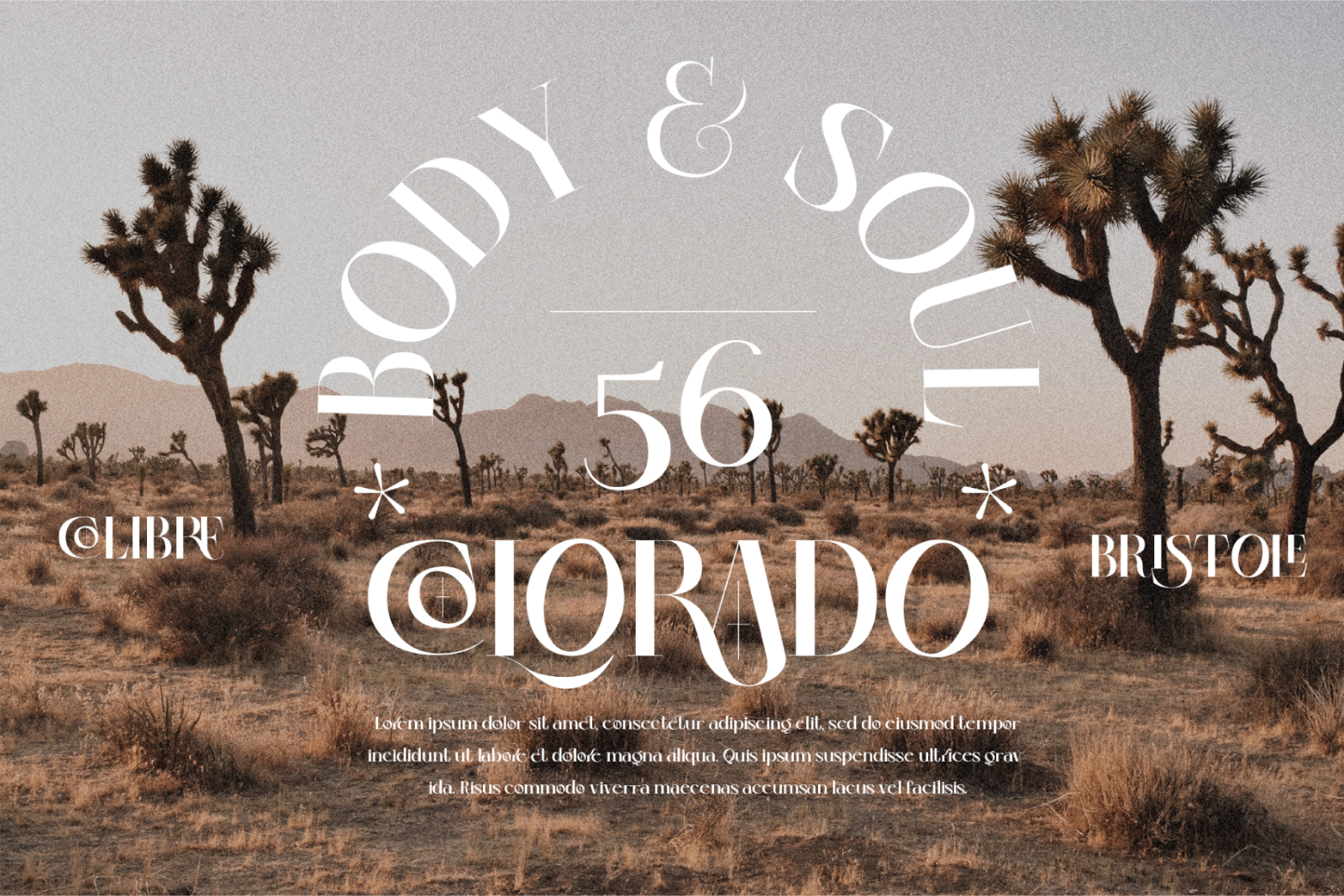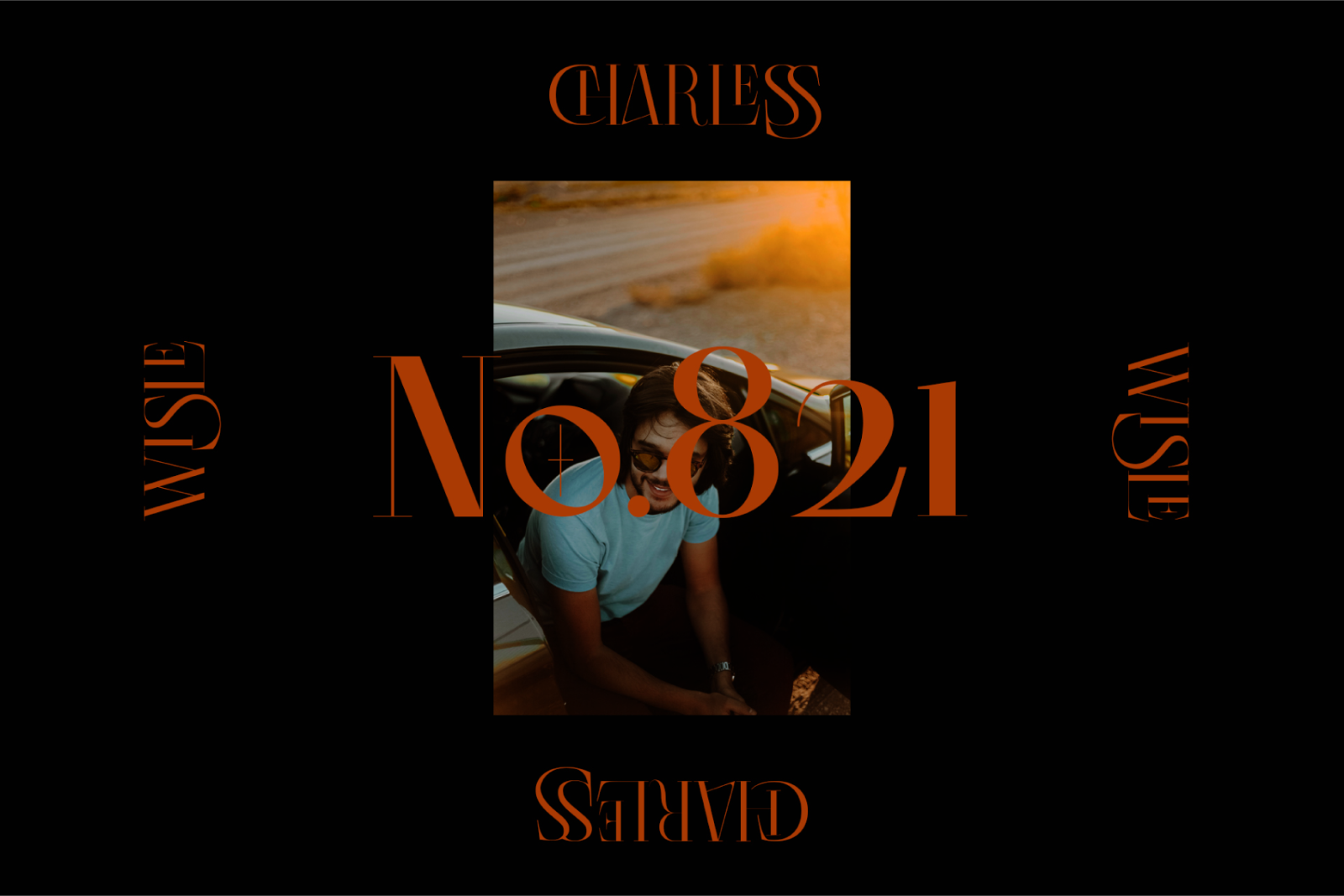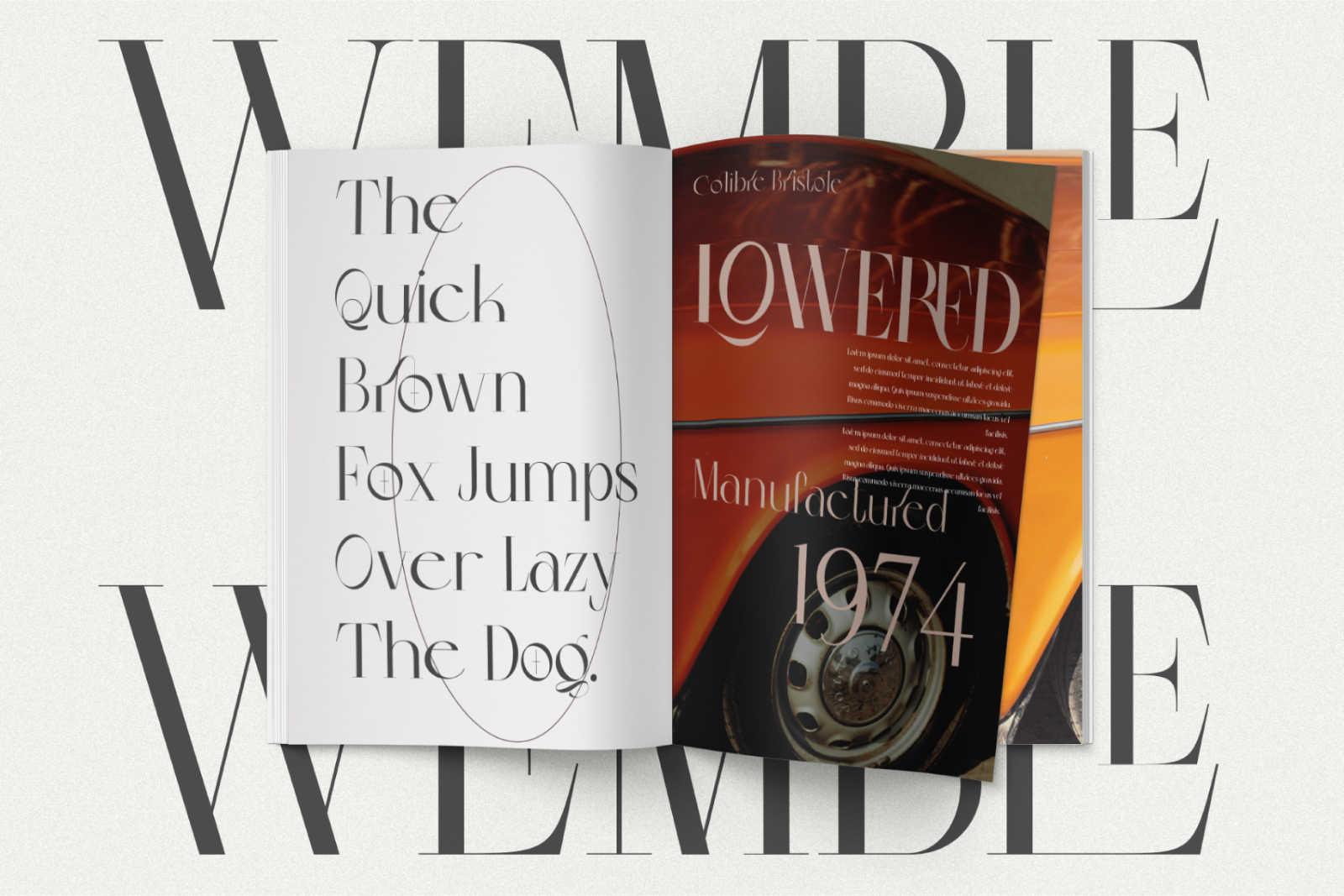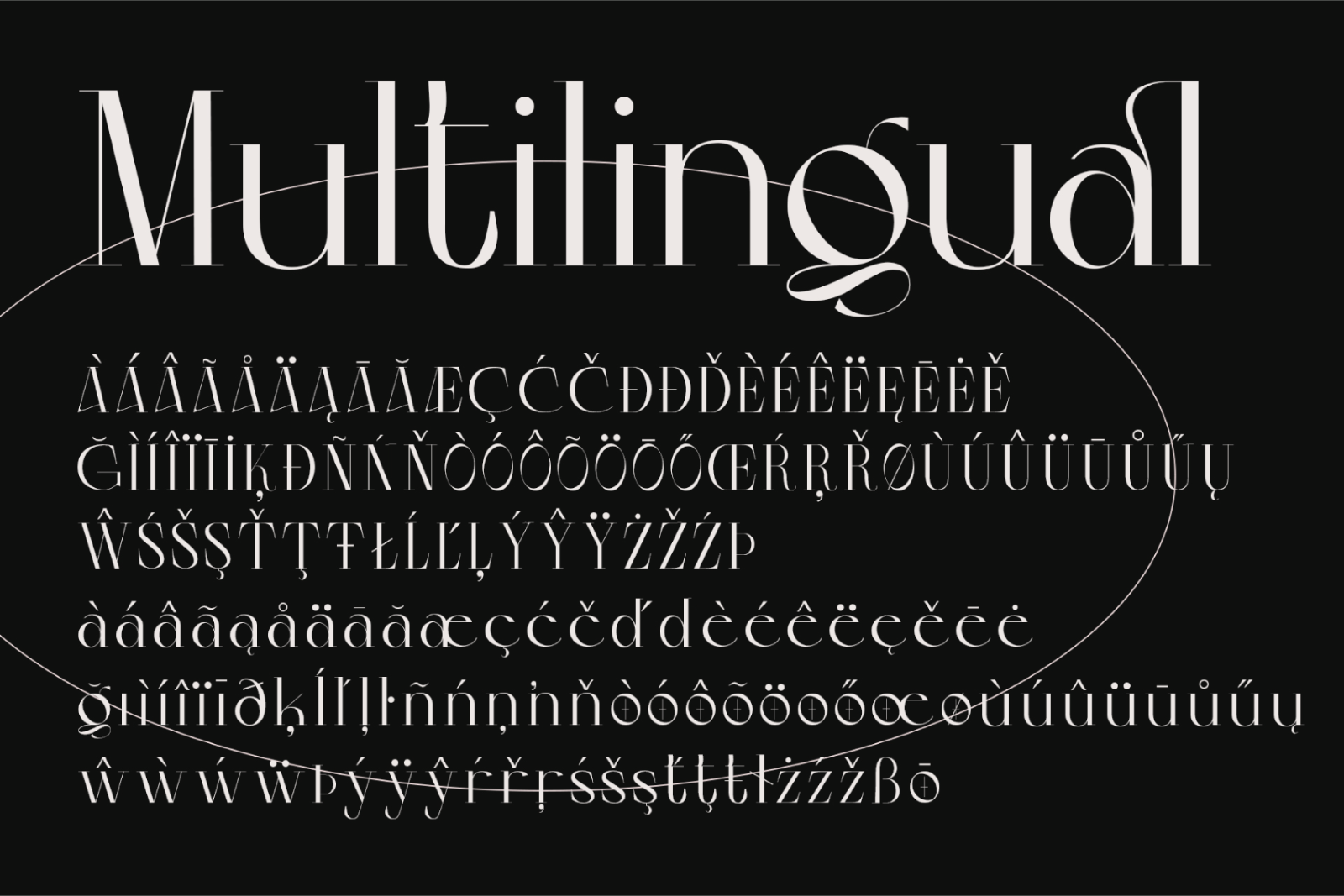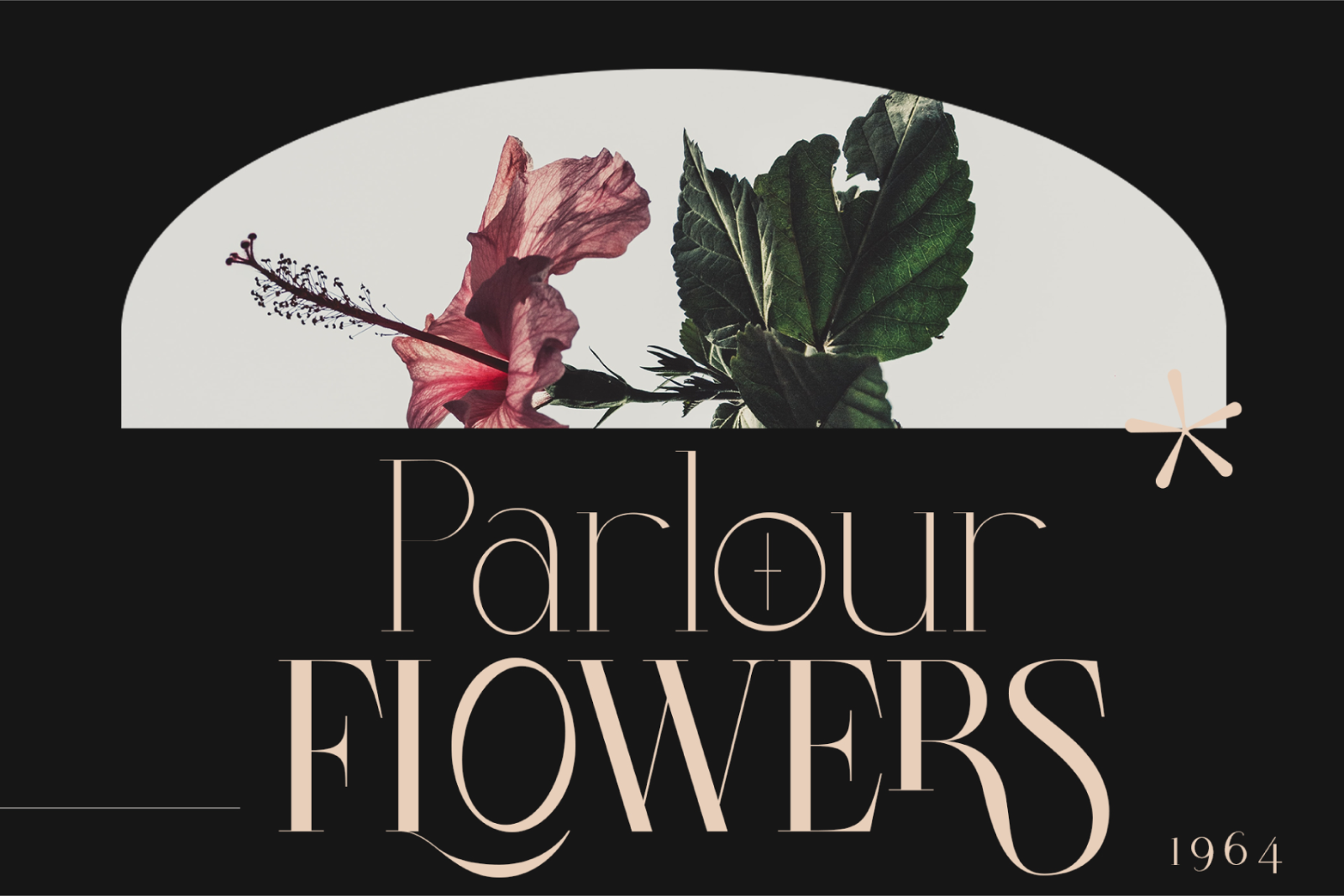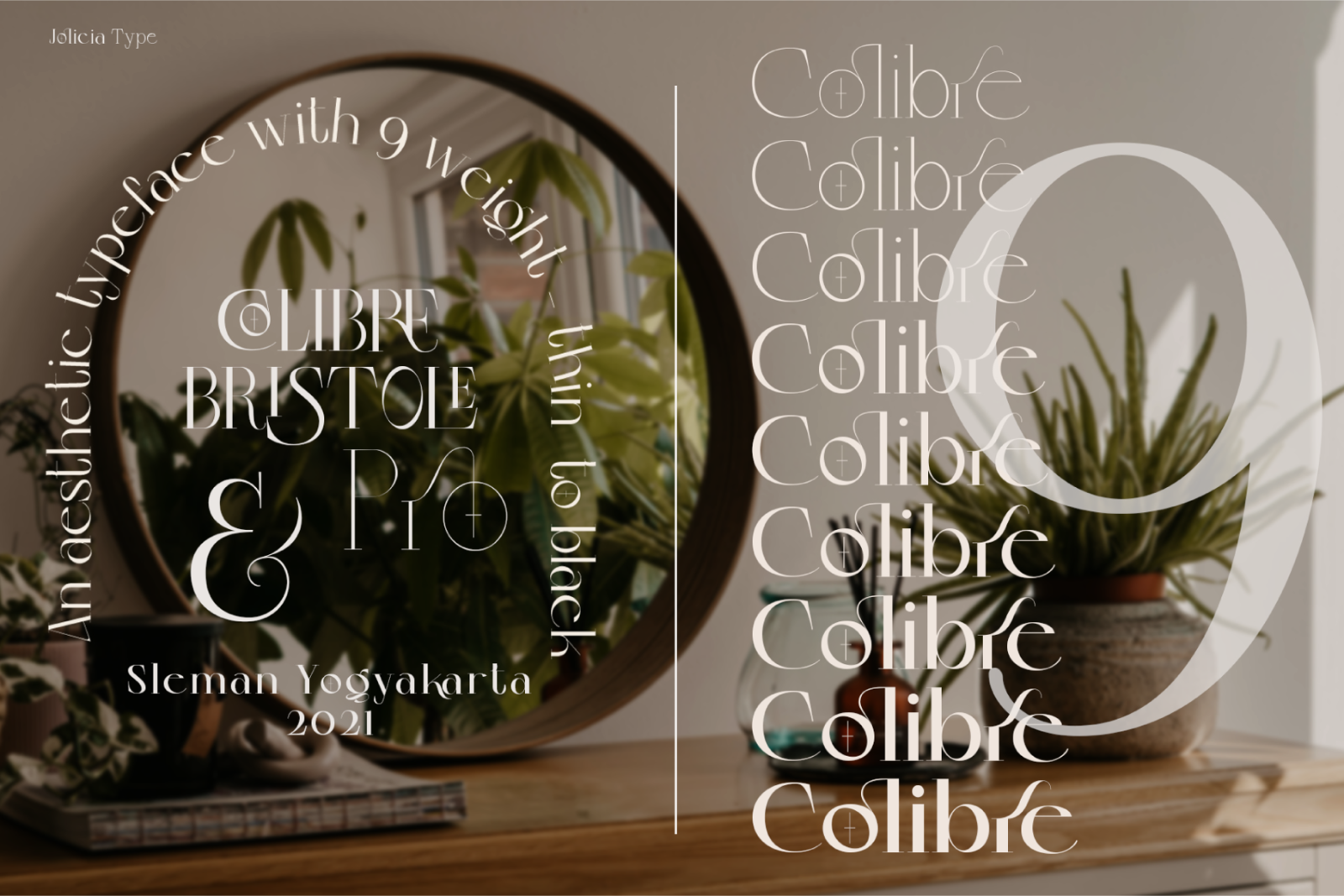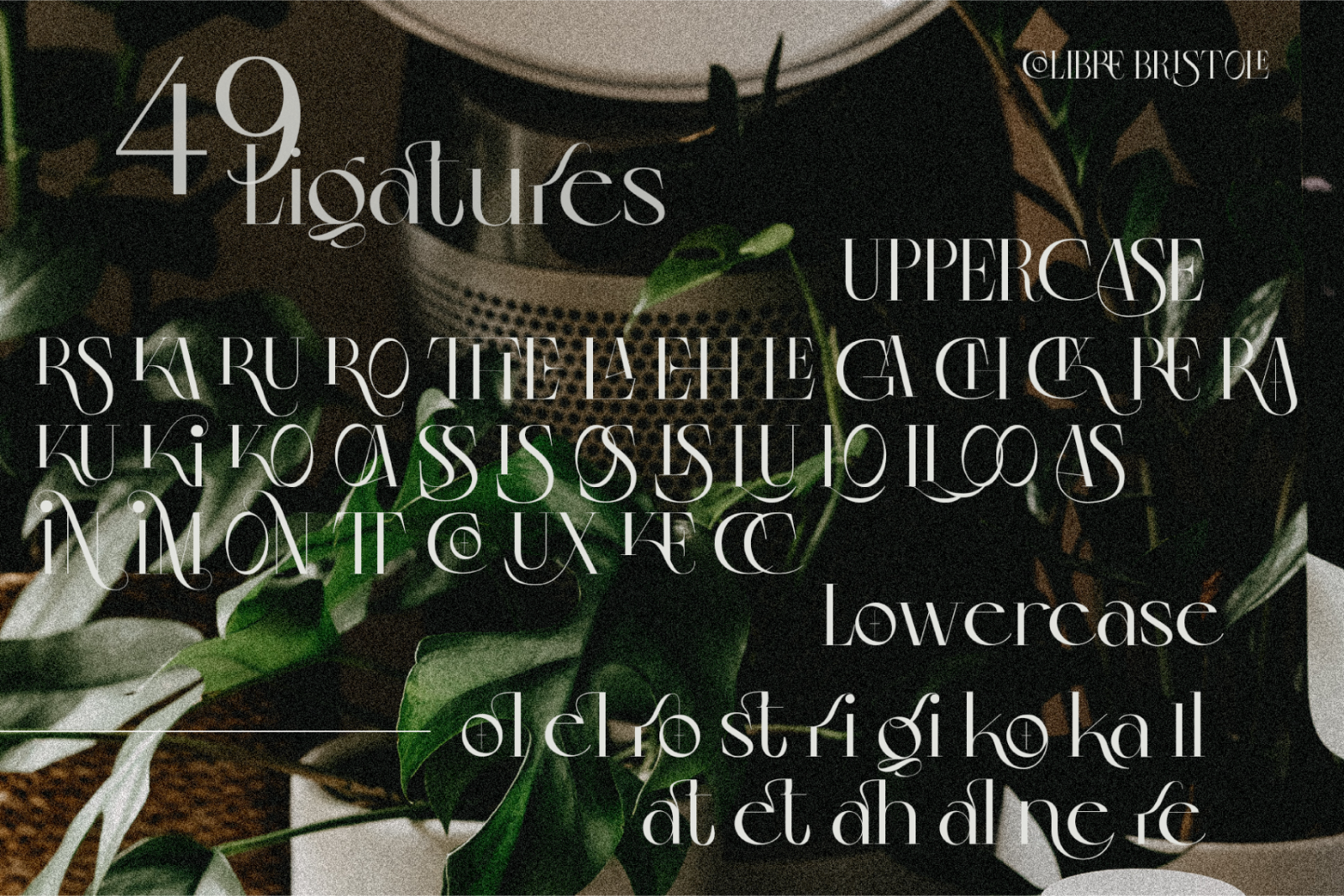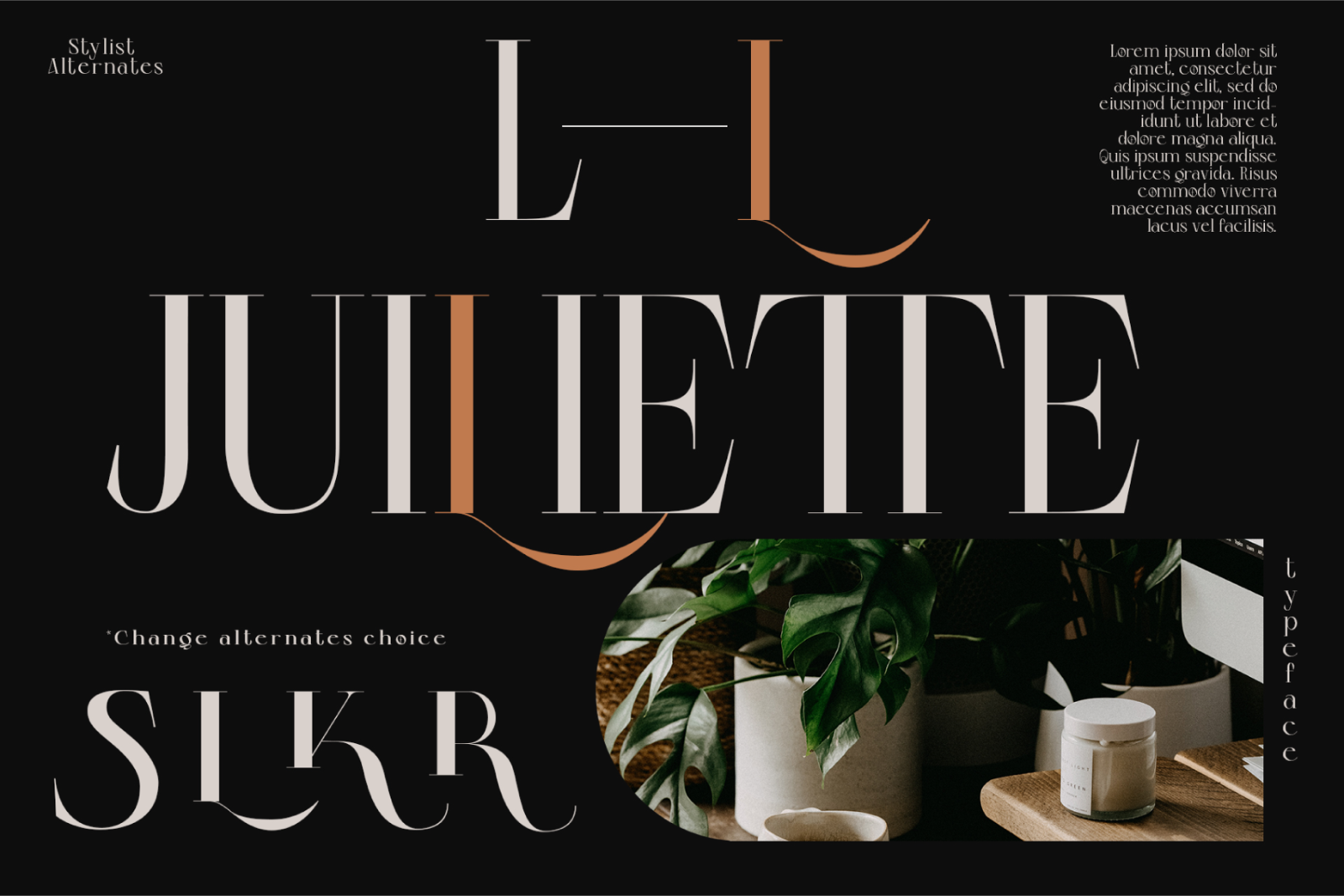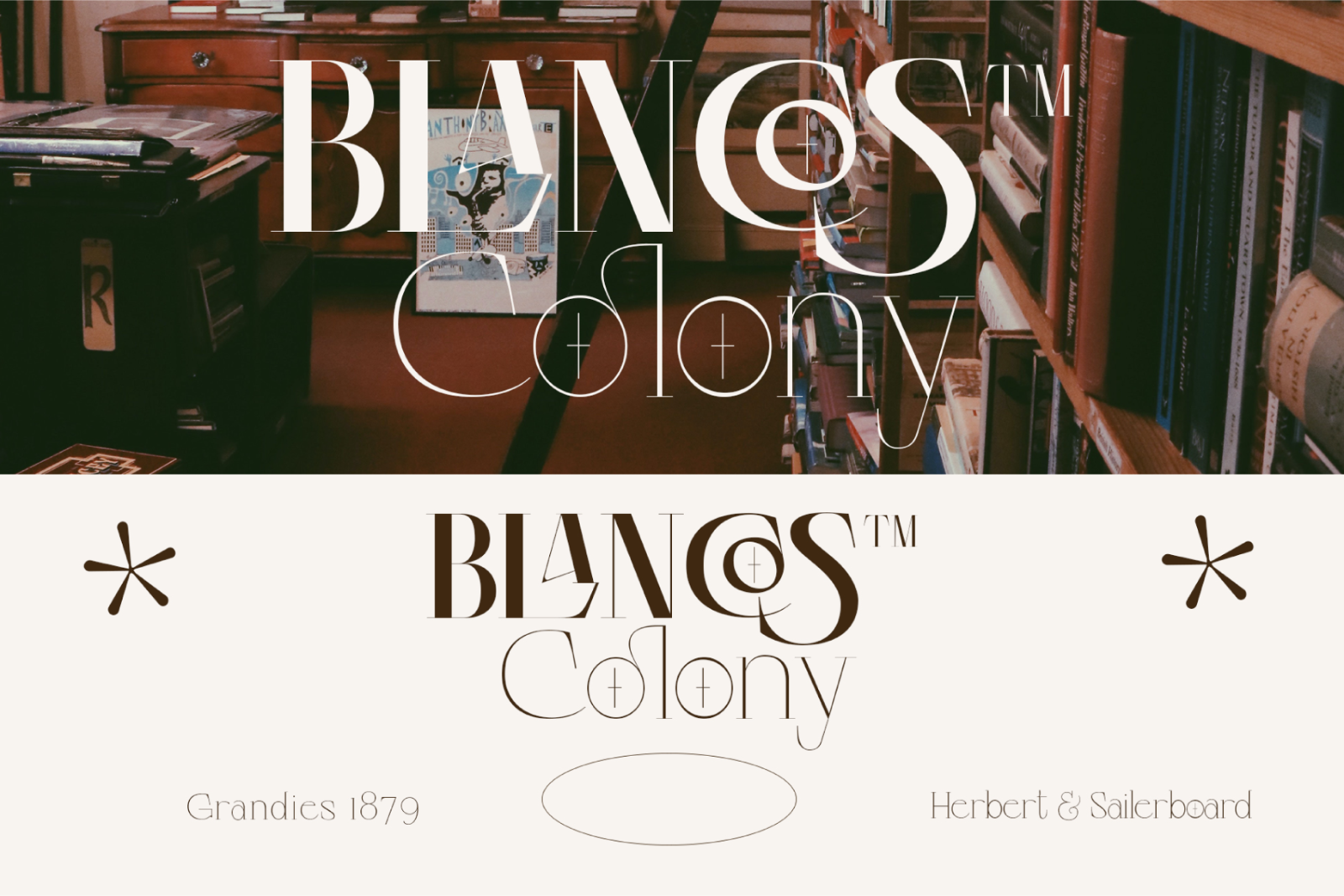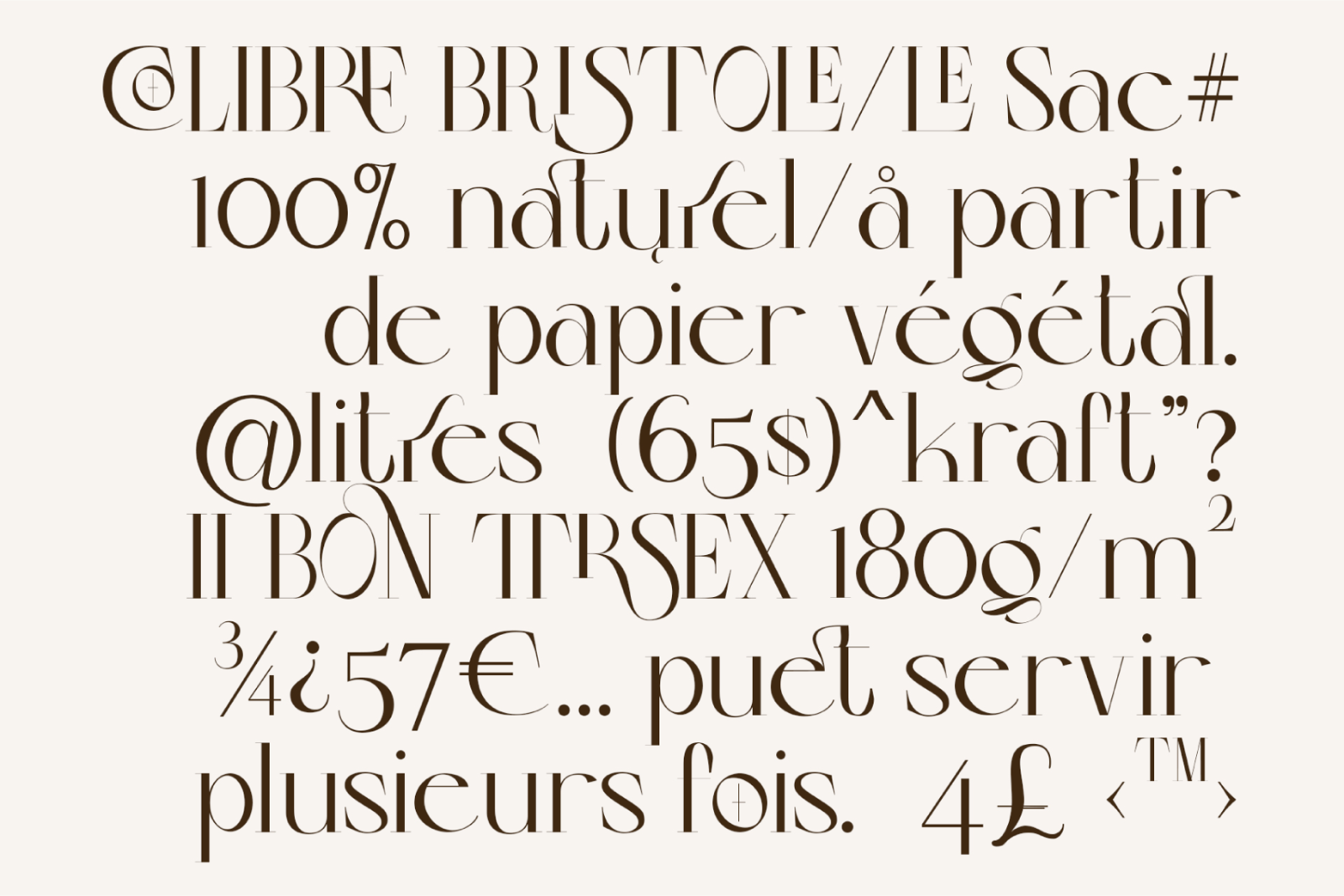
Colibre Bristole Pro is a serif font family that crafted with precision, Colibre Bristole consist of 9 styles from thin to black. has 49 ligatures to make writing more interactive
• Multilanguange
• Alternates
• Font Family totals 9 fonts